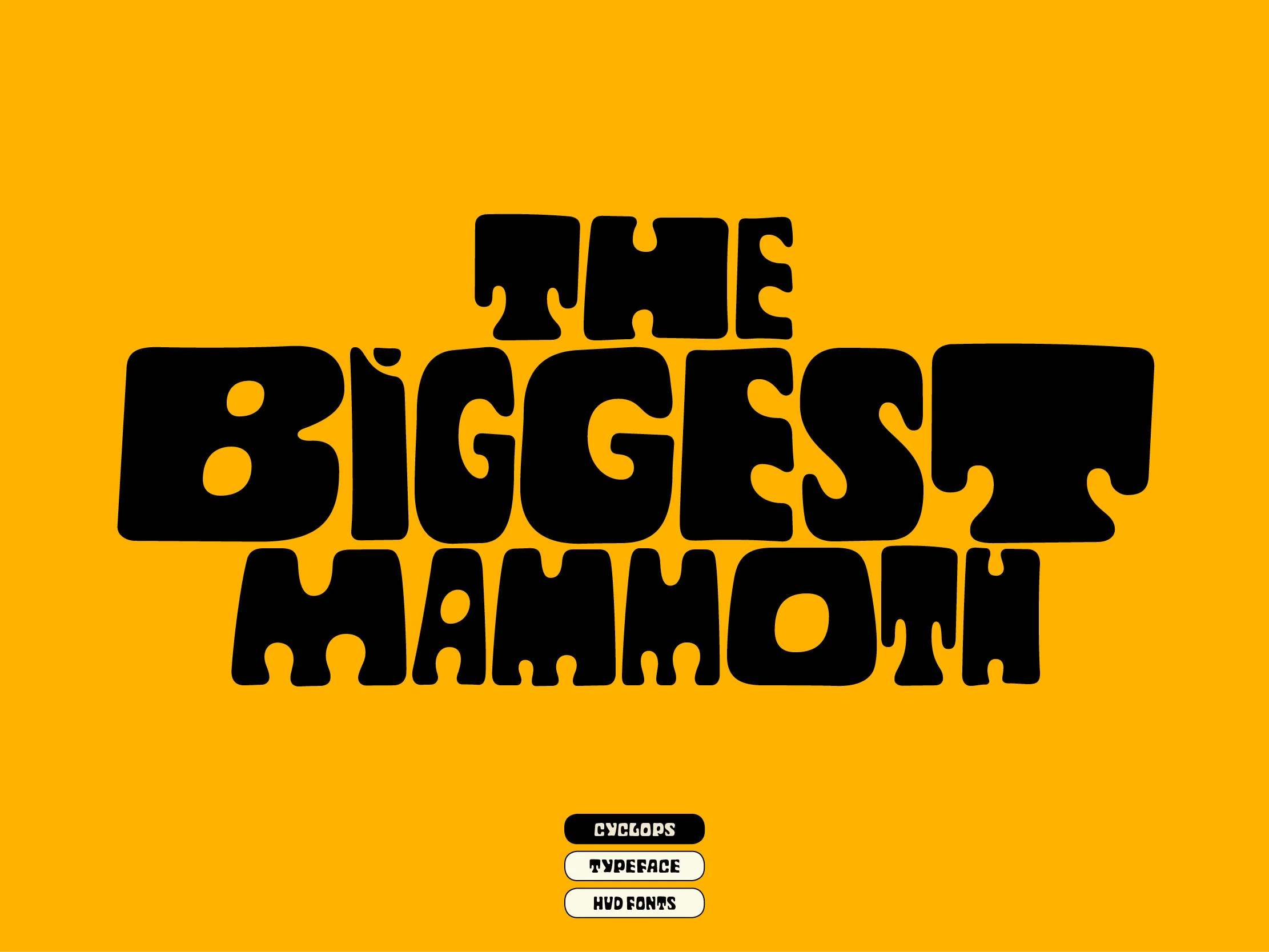
Cyclops
A display typeface from HvD Fonts, details of which could not be retrieved due to access restrictions.
The name and foundry context suggest a display-oriented sans-serif, likely with strong geometric or expressive characteristics suited to headline use. Classified as display sans in the absence of further detail.